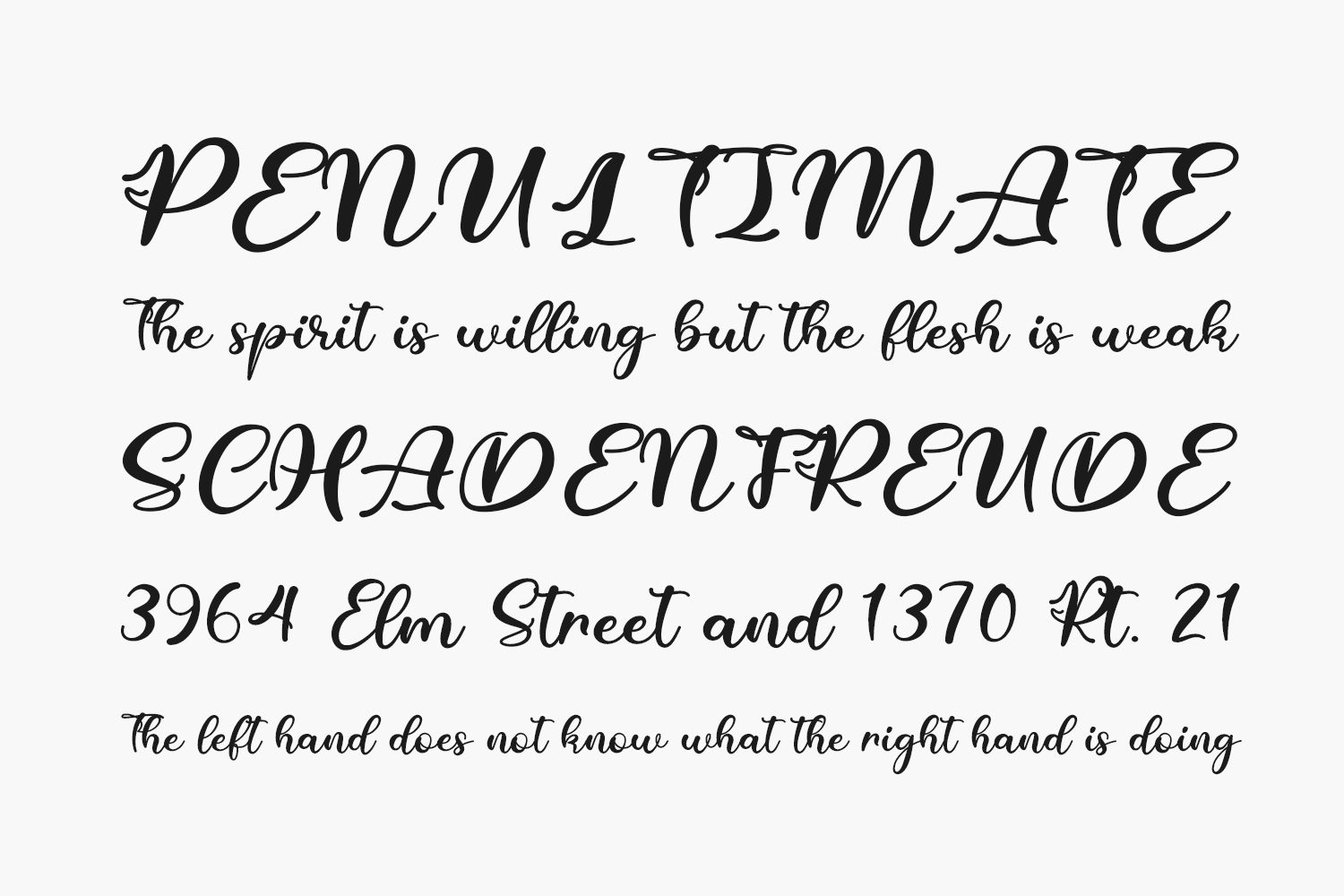
Stephanie Free Font is a delicate, elegant and flowing handwritten font. It has beautiful and well balanced characters and as a result, it matches a wide pool of designs. Stephanie Free Font was designed by Letter Art Studio and is free for personal use only. Please purchase the full version for commercial use.